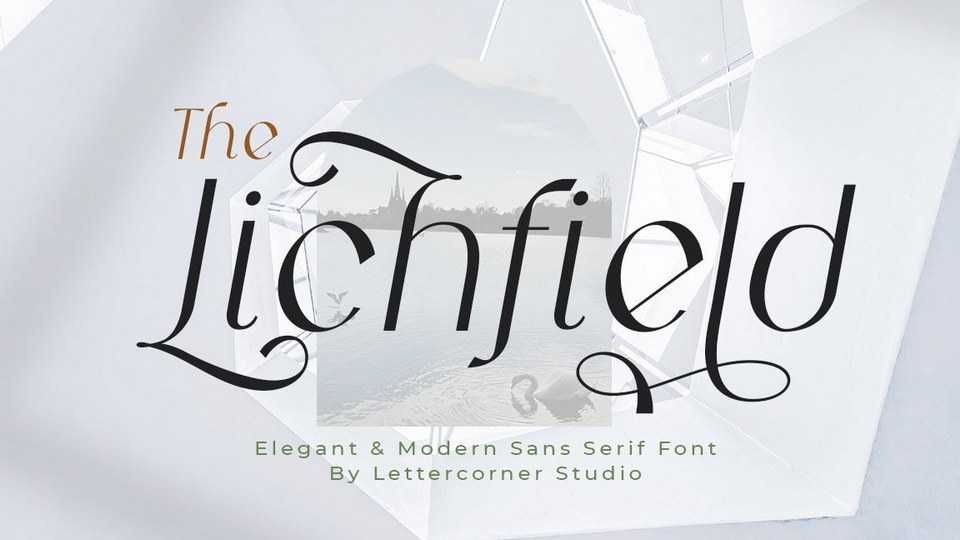
Download Lichfield font, an incredibly elegant and beautifully rounded sans serif typeface that will add a timeless look to any design project. Lichfield is very suitable for logo, brand identity, packaging designs and many more.
Designer: Lettercorner Studio